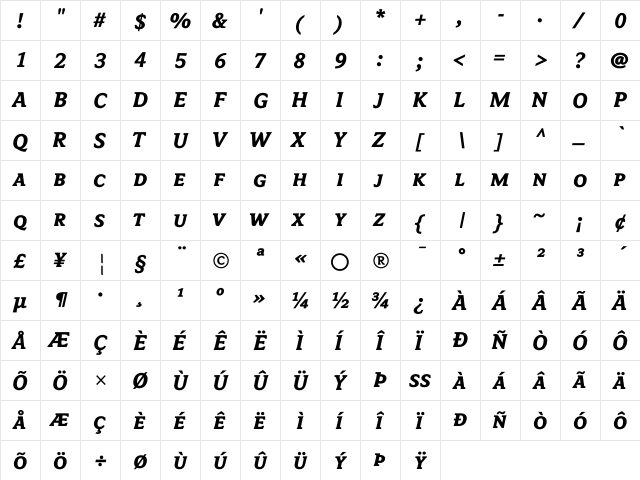
Avance Bold SC Italic
Design Context for Avance Typeface
Avance is a composed and adaptable typeface that performs quietly and consistently across a wide range of design contexts. The slanted form adds forward momentum and visual energy. The heavy weight commands attention and anchors typographic hierarchies.
Pro Tip: Use Avance for emphasis, pull quotes, and subheadings where its slanted energy can add rhythm to the layout.